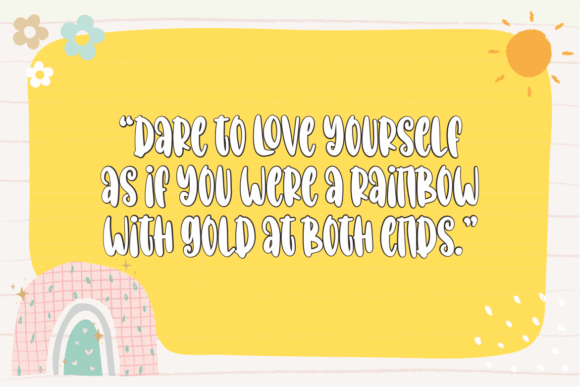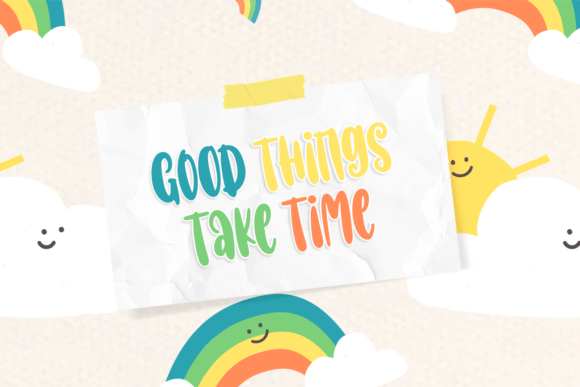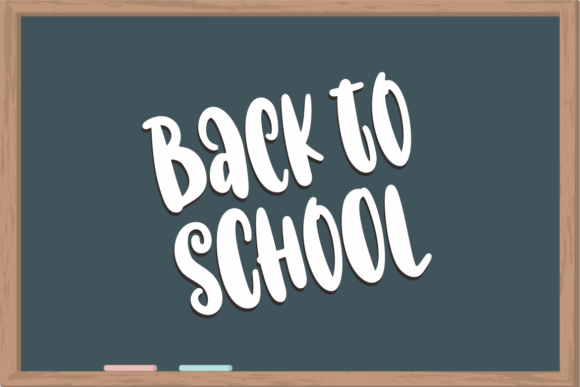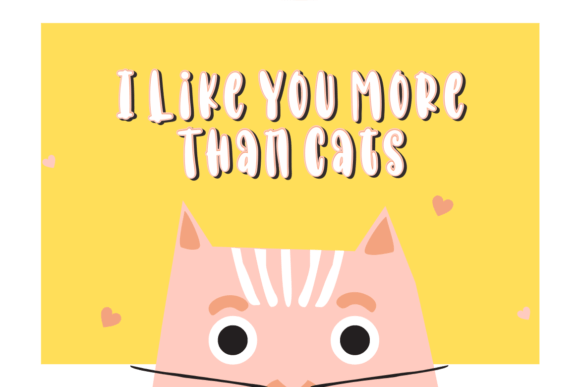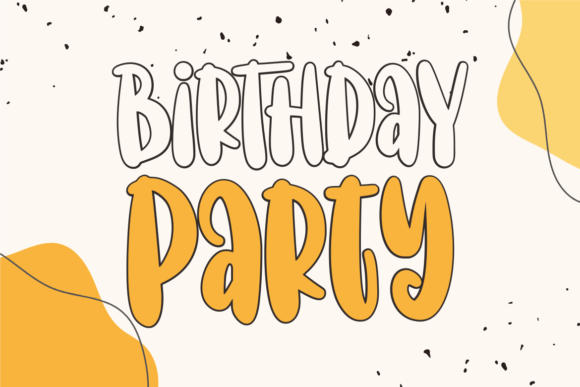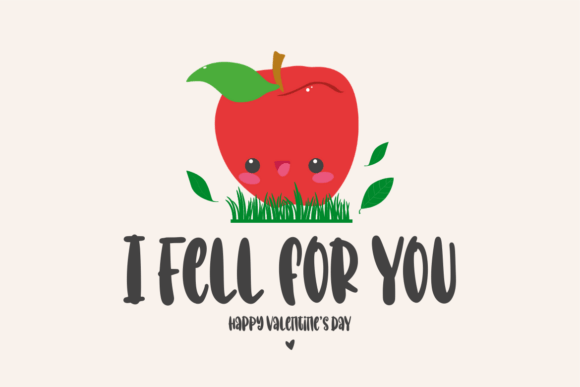
The Joy of Franklin Display: A Playful Handwritten Font
I’ll never forget the time I was working on a greeting card project for a friend’s birthday. I had all the design elements in place – the colors, the graphics, the overall vibe – but something was missing. The font I was using just wasn’t doing it for me. It was too formal, too boring, and just plain didn’t match the playful personality of the birthday girl. That’s when I stumbled upon Franklin Display, and let me tell you, it was love at first sight! 💕
A Font that Brings Happiness
Franklin Display is a playful and friendly handwritten display font that’s perfect for a wide range of applications. From greeting cards to headlines, this font adds a touch of happiness to each of your creations. And the best part? It’s PUA encoded, which means you can access all the amazing glyphs and ligatures with ease! 🎉
So, what do I love about Franklin Display? Here are a few things:
- ✨ It’s super playful and fun, making it perfect for projects that need a bit of whimsy.
- ✅ The handwritten feel is smooth and consistent, making it easy to read.
- 💬 The glyphs and ligatures are amazing – there’s so much variety to work with!
Of course, no font is perfect, and Franklin Display does have a few small quirks:
- 🤔 Some of the letters can be a bit quirky when used in all caps – but that’s part of the charm, right?
- ⚠️ It can be a bit overused, so be sure to use it sparingly to make the most impact.
The Story Behind Franklin Display
Franklin Display was designed with one goal in mind: to bring a little joy and whimsy to the world of typography. The designer, a self-proclaimed font nerd, wanted to create a font that would make people smile. And with its playful, handwritten feel, Franklin Display does just that.
| Q: Is Franklin Display suitable for body text? | While Franklin Display is a beautiful font, it’s best used for headlines and display text. Its playful feel can be overwhelming for longer blocks of text. |